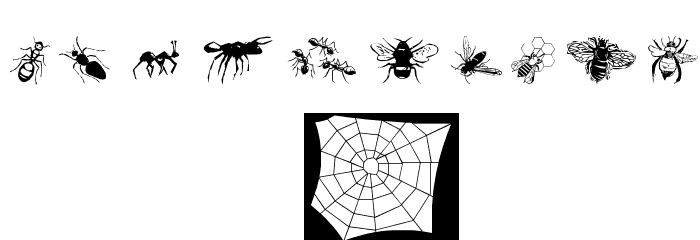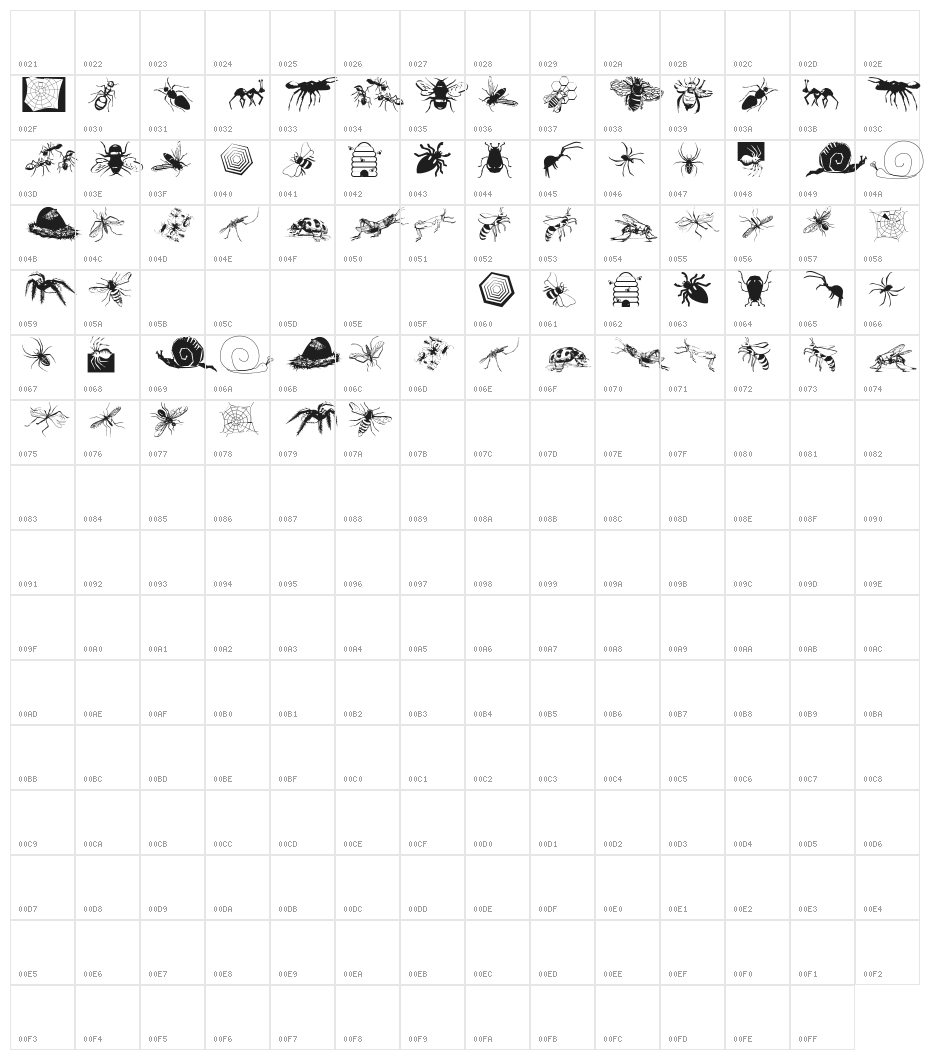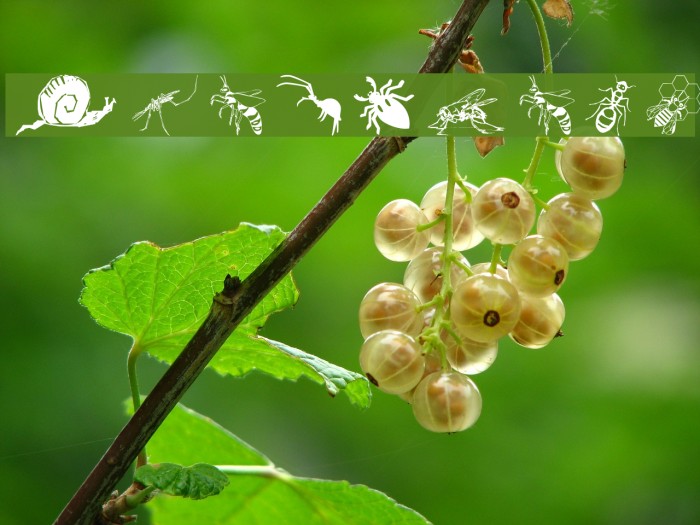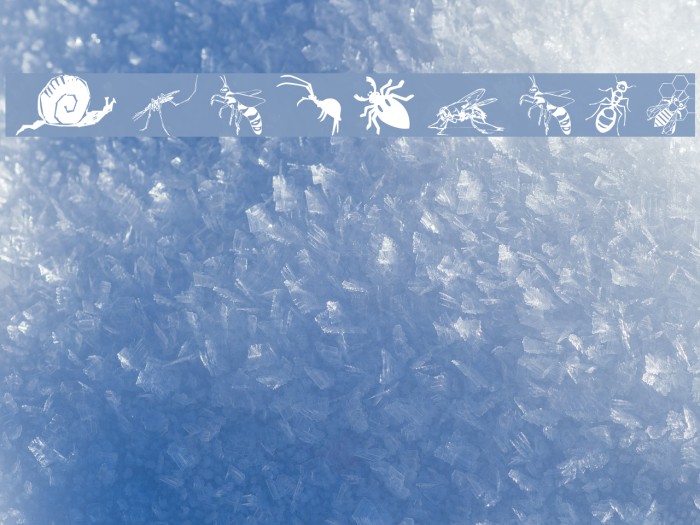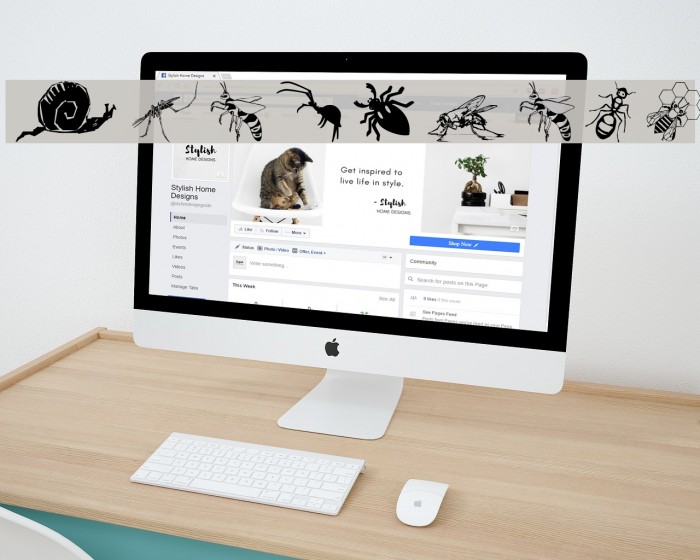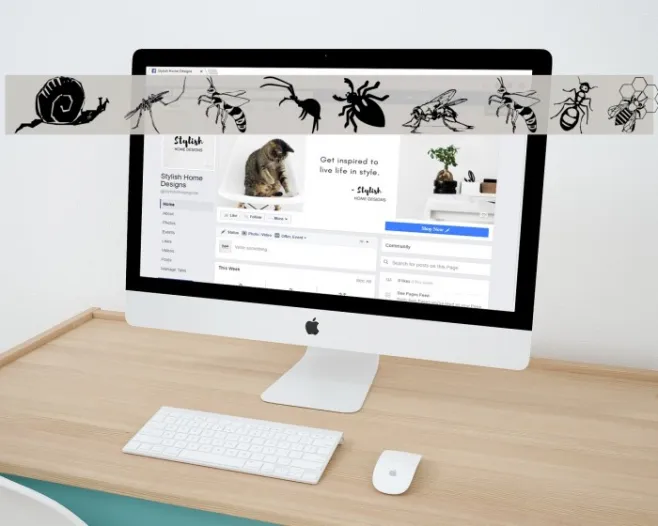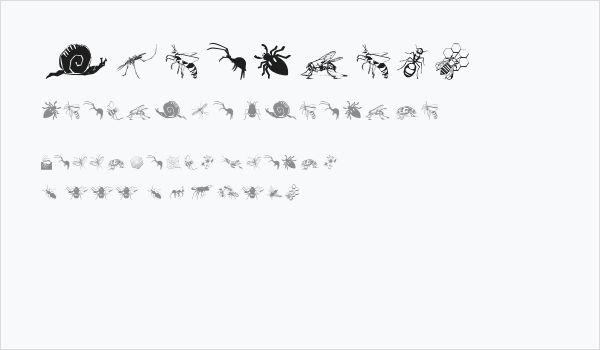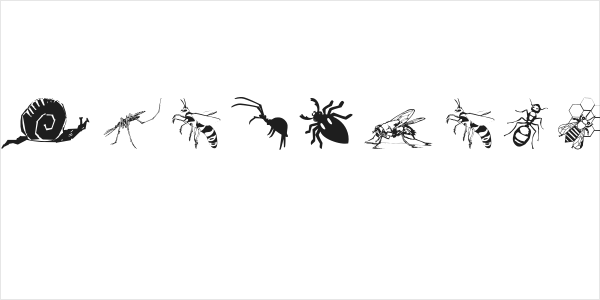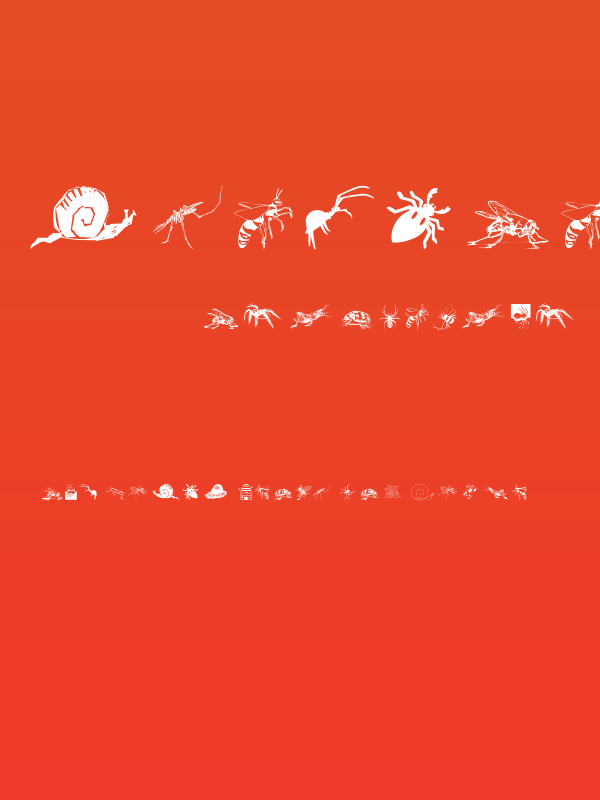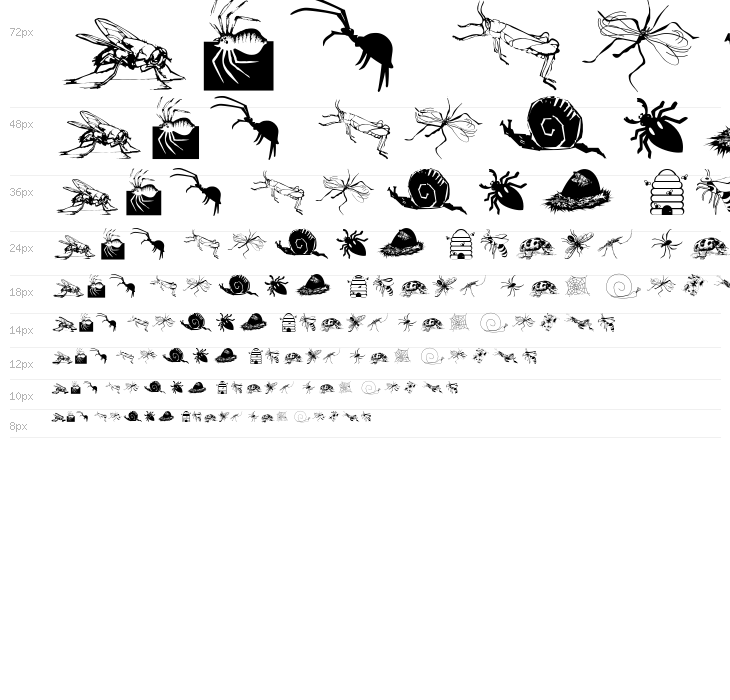
Insects07 Font
Insects07 Description
A decorative dingbat font featuring detailed black and white illustrations of various insects, spiders, snails, and related nature elements. Each glyph is a unique pictogram rather than a traditional letterform, with a mix of solid and outline styles, and a playful, illustrative approach.
| Overall Style | Decorative, Illustrative, Playful |
| Use Case | Icons, Decorative elements, Themed graphics |
| Proposed Projects | Children's books, educational materials, nature-themed posters, scrapbooking, greeting cards, and decorative icons. |